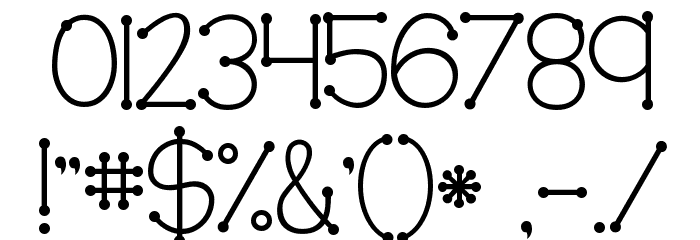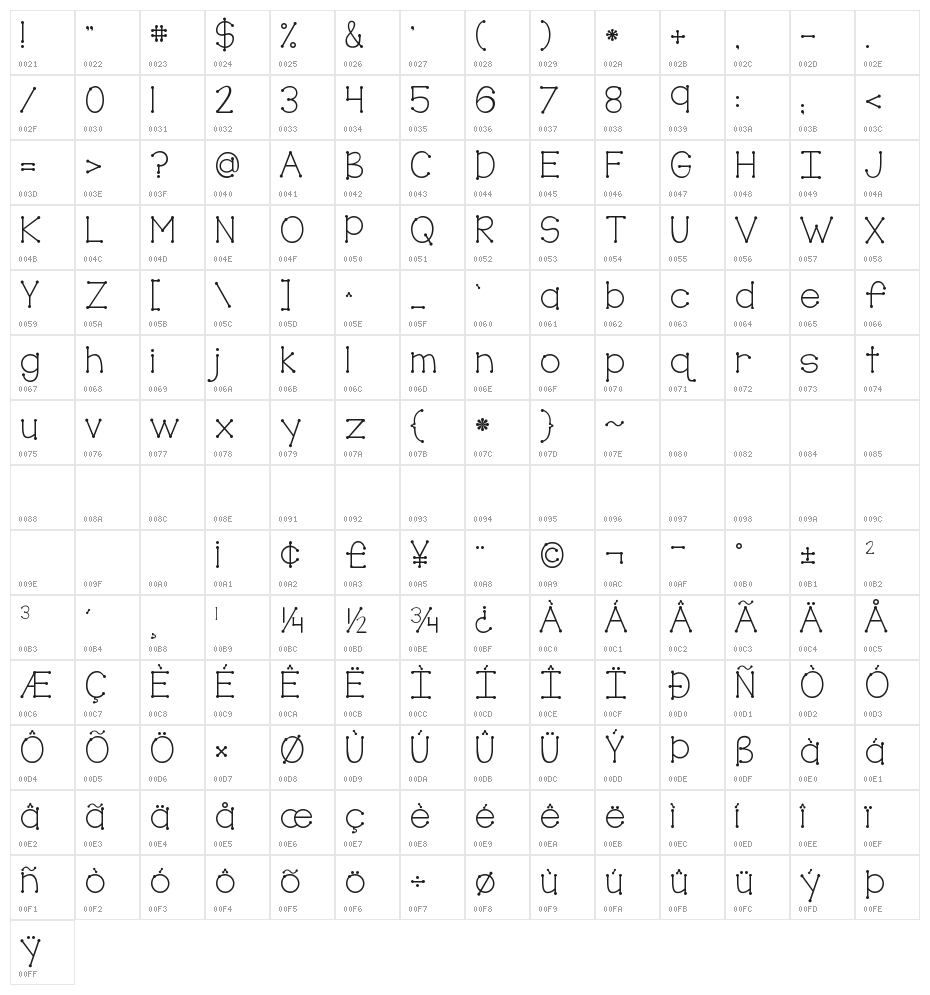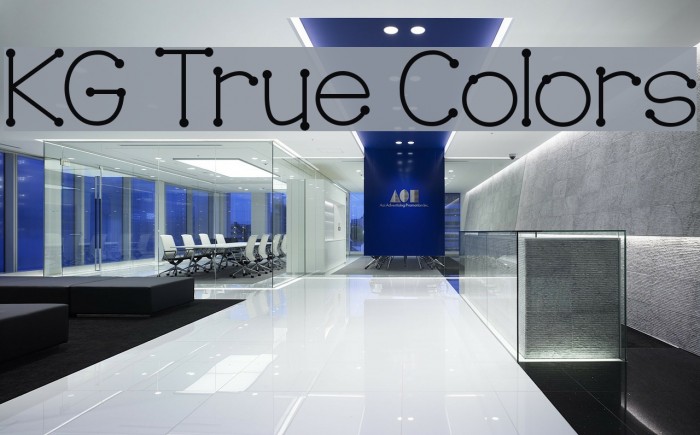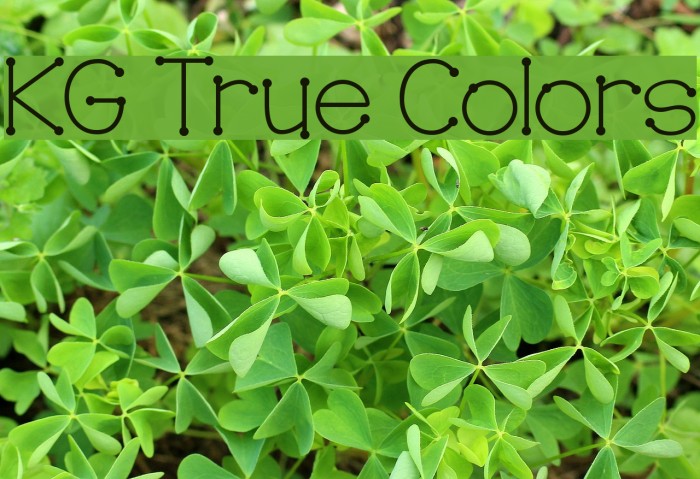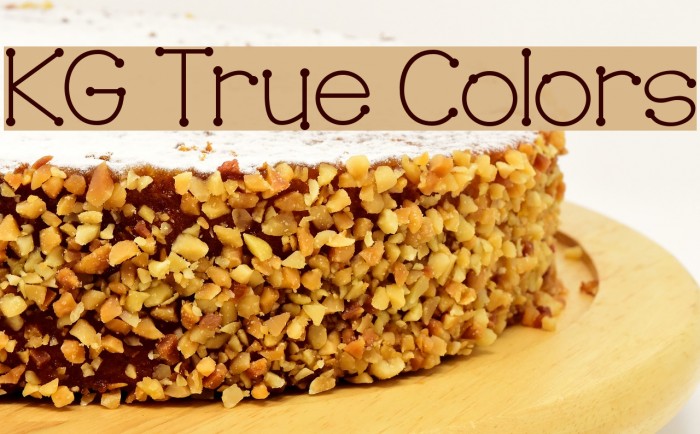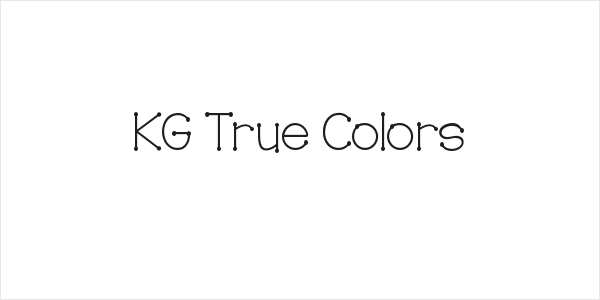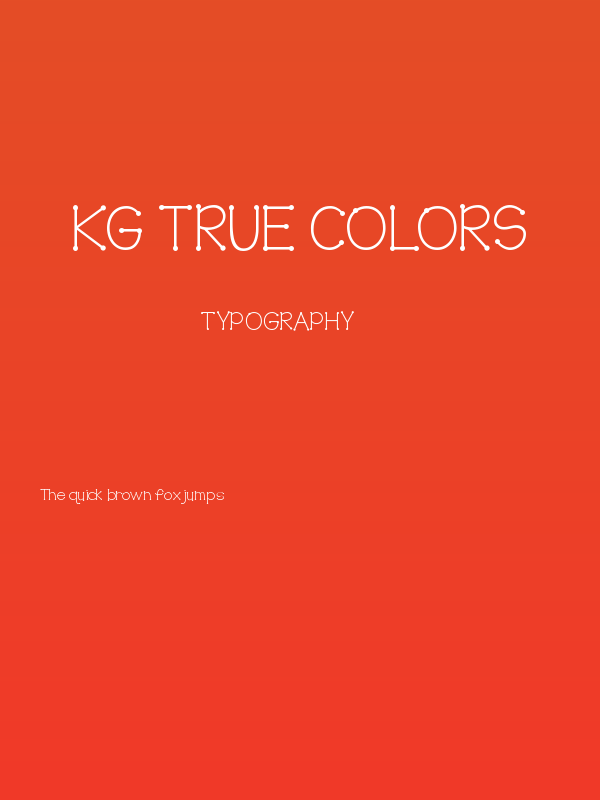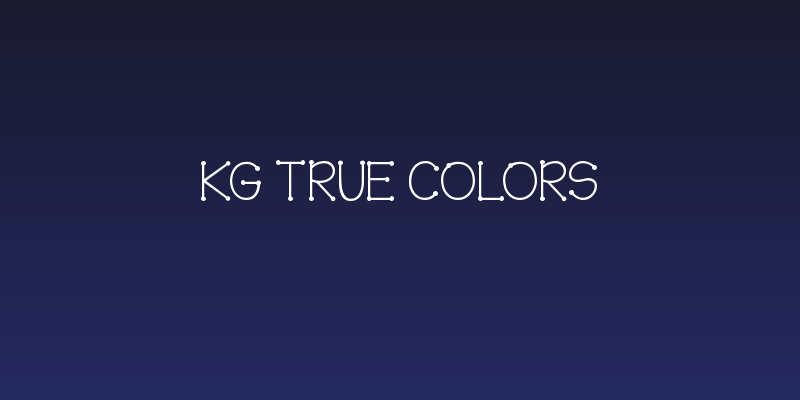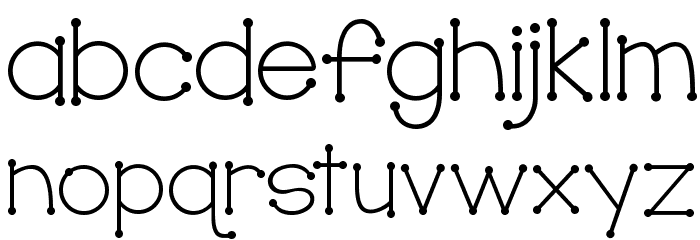
KG True Colors Font
KG True Colors Description
This font features a playful and whimsical design, characterized by its unique use of dots at the end of each stroke. The letters are formed with a consistent line weight, giving it a clean and modern appearance. The rounded terminals add a friendly and approachable feel, making it suitable for creative and informal projects. The font maintains a uniform structure across both uppercase and lowercase letters, as well as numbers and special characters, ensuring readability and versatility. Its distinct style makes it ideal for projects that require a touch of fun and creativity.
| Proposed Projects | Ideal for children's books, playful branding, creative posters, and educational materials. |